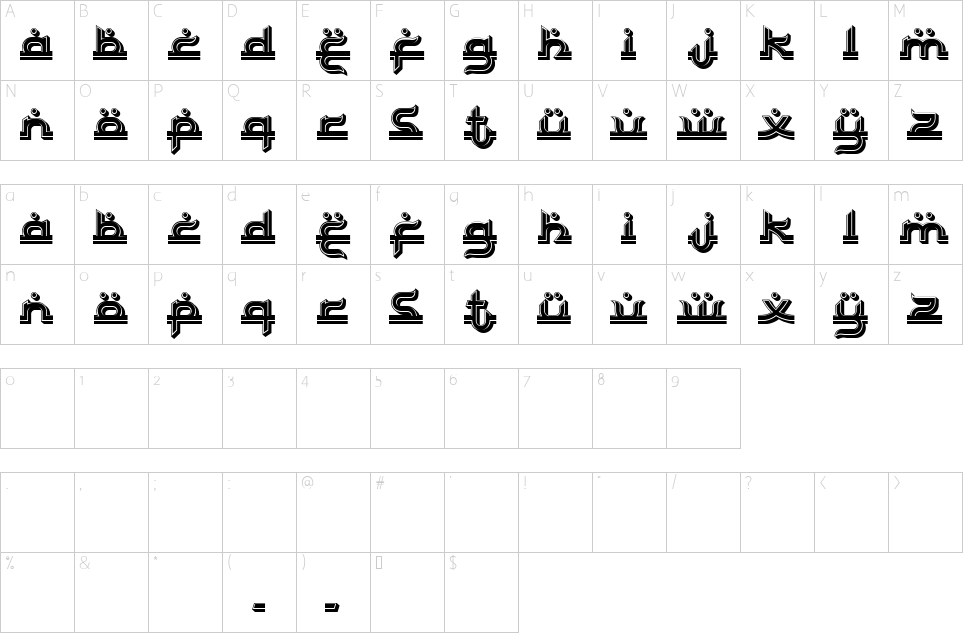
Bayram Font
Designer Name: | Vladimir Nikolic |
"Bayram" is superb Arabic font family. It comes in three different styles. Use it for for posters, flyers, book covers, menus and much more!